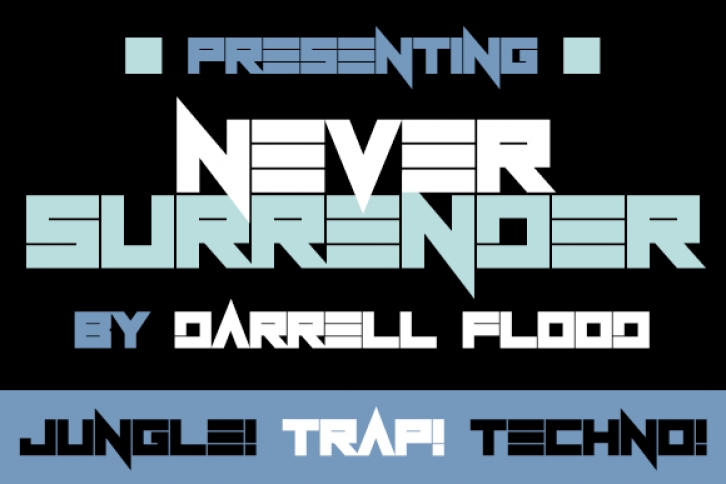
Never Surrender is an angular, modern font in a robot-like style. Perfect for futuristic settings and other sci-fi designs!
Font created by Darrell Flood.